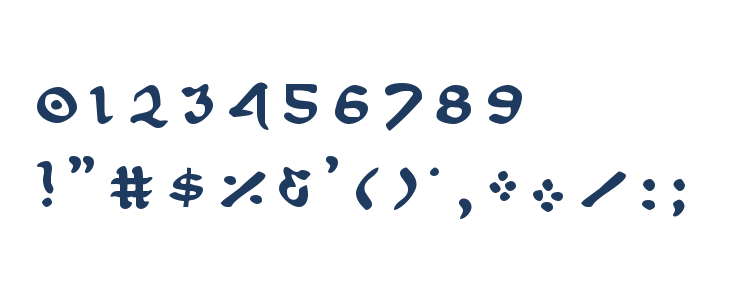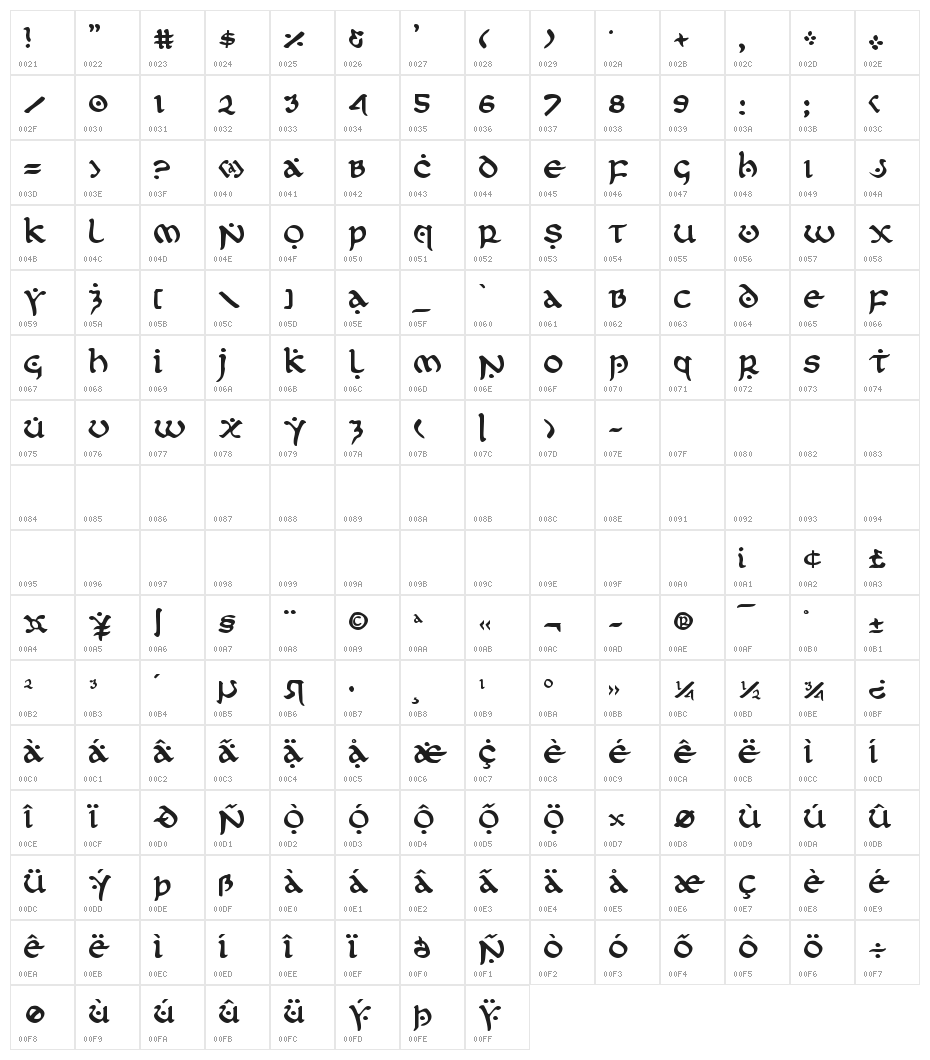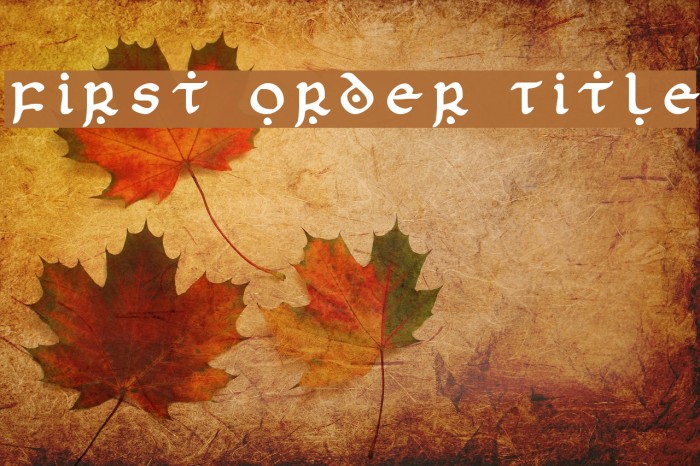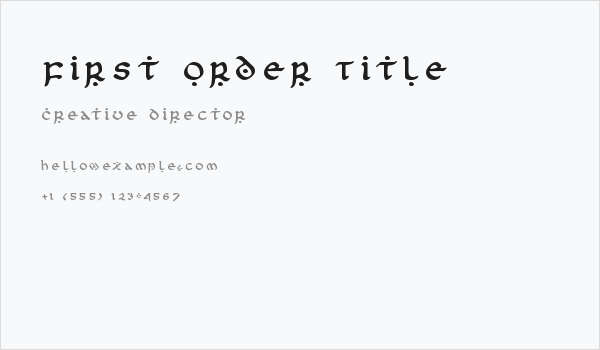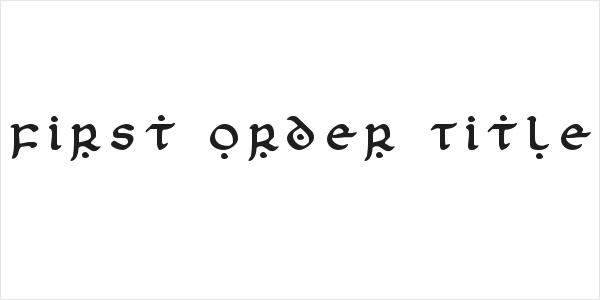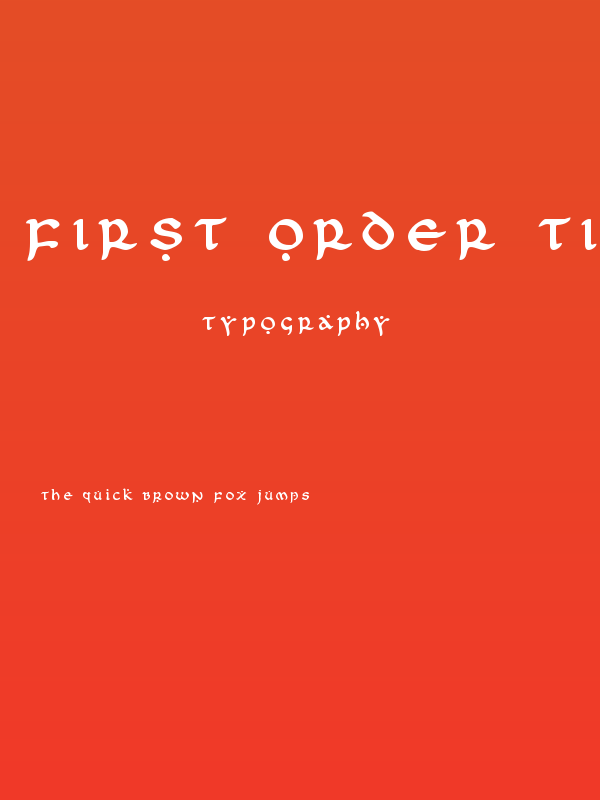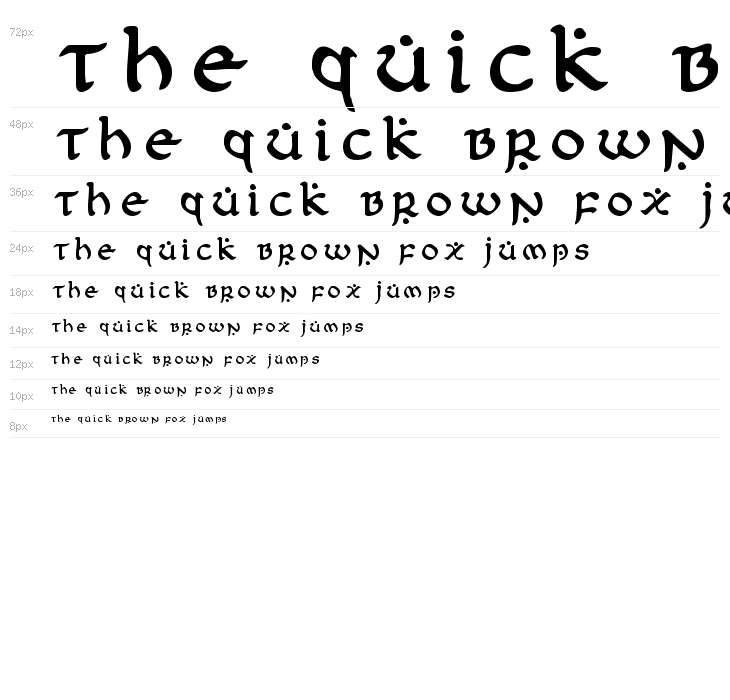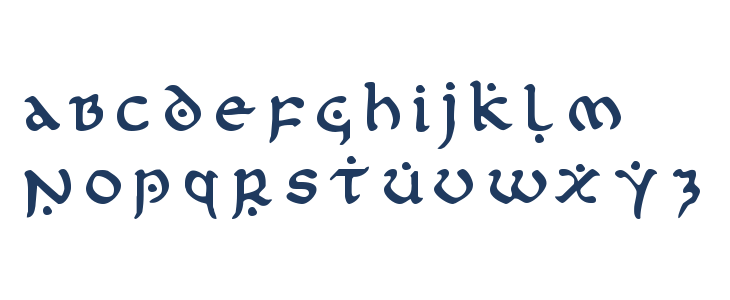
First Order Title Font
First Order Title Description
This font features a unique and artistic design with a whimsical flair. Each character is adorned with small decorative elements, giving it a playful and almost mystical appearance. The strokes are bold and slightly uneven, adding to the hand-crafted feel. The overall aesthetic is reminiscent of ancient scripts or fantasy-themed typography, making it stand out with its distinctive style. The numbers and special characters maintain the same decorative quality, ensuring consistency across all glyphs.
| Use Case | Logos, Titles, Posters |
| Proposed Projects | Ideal for fantasy-themed projects, book covers, game titles, or any creative design requiring a mystical touch. |